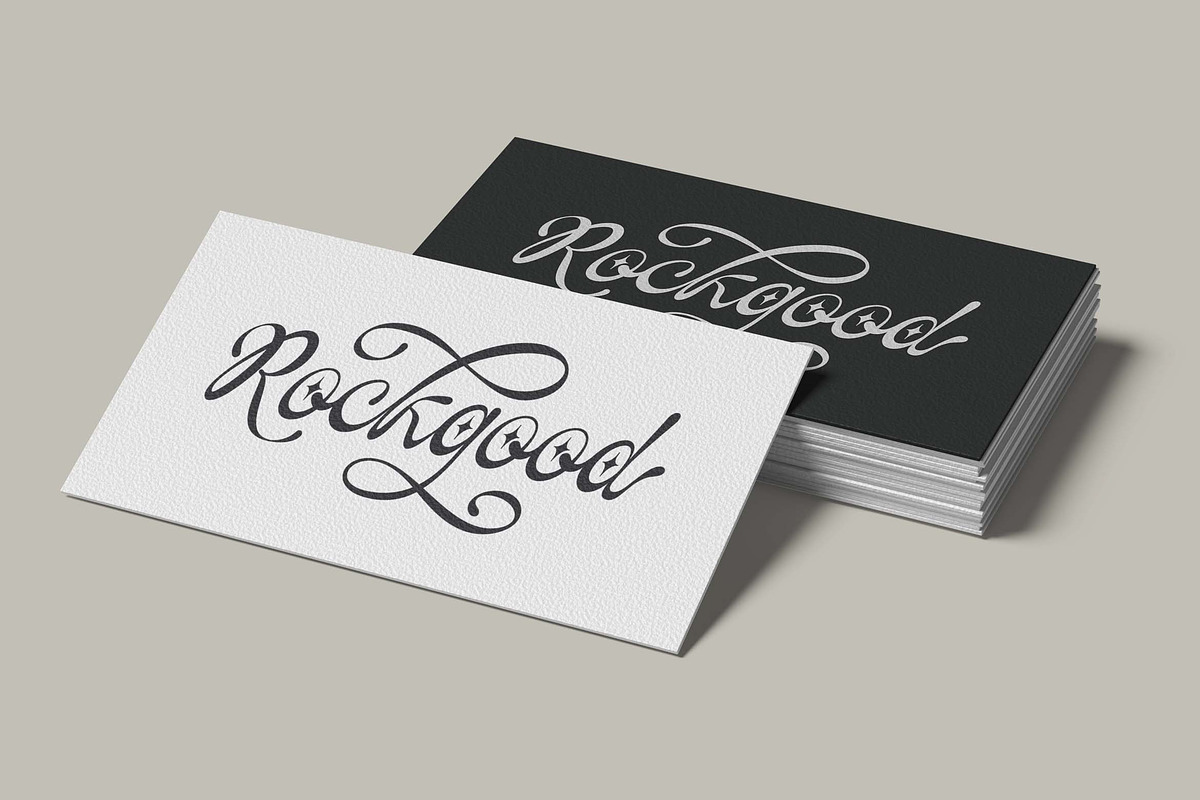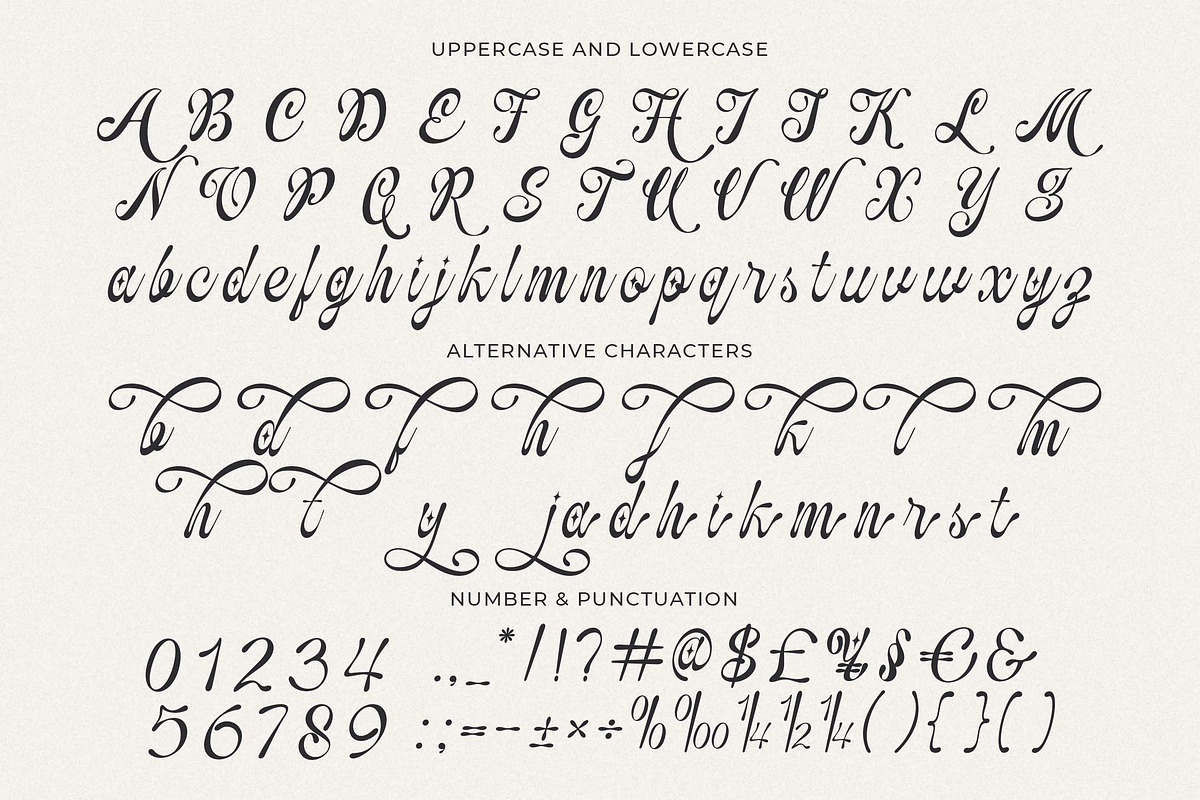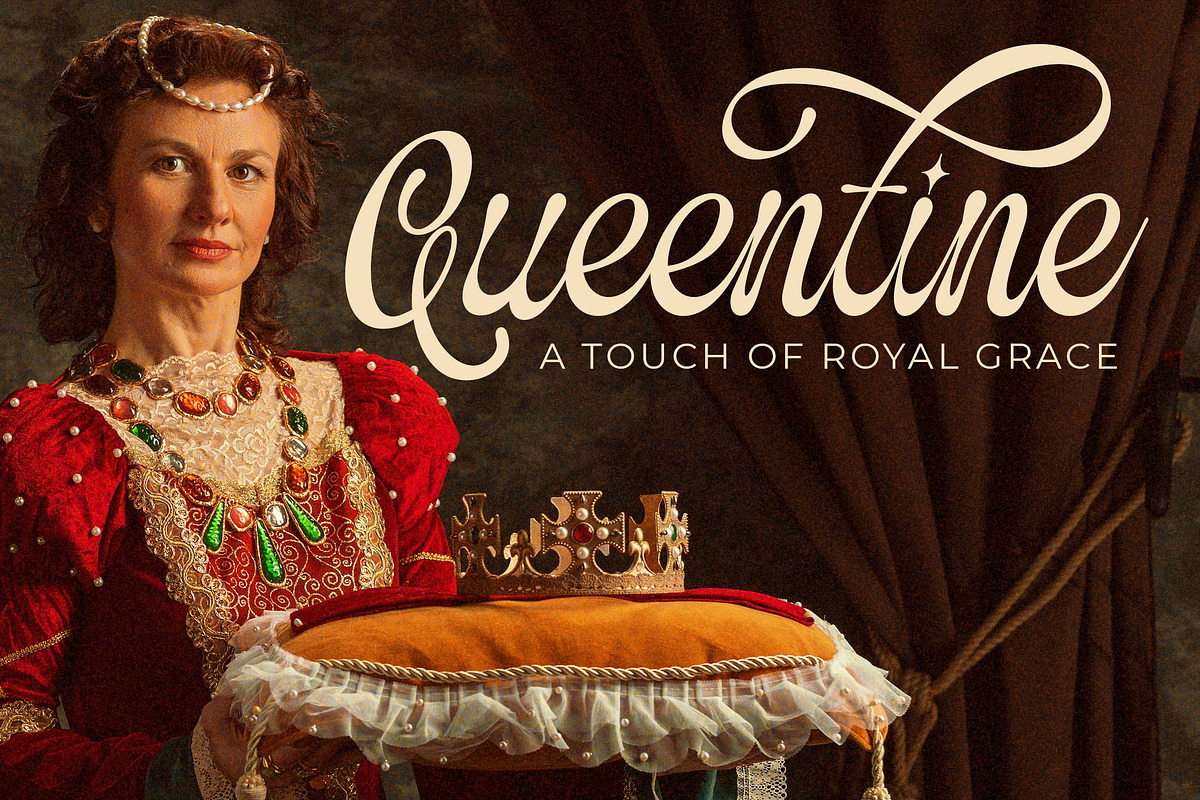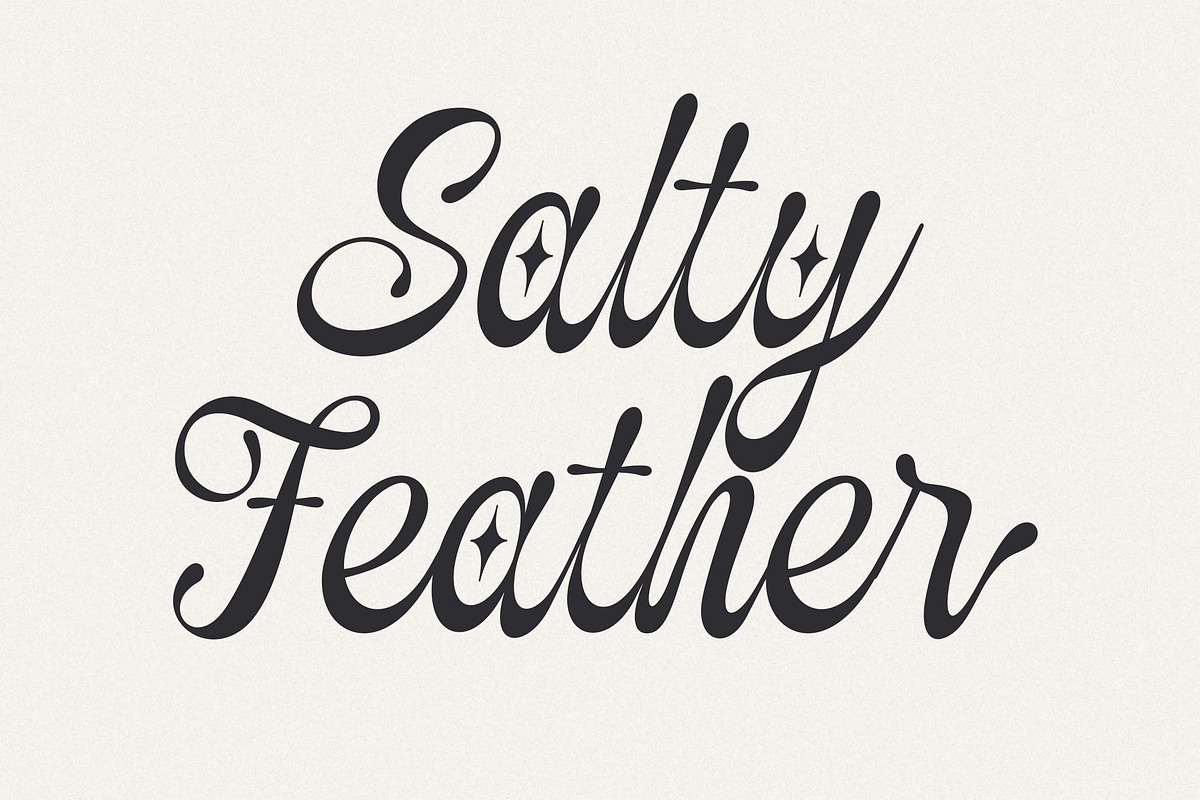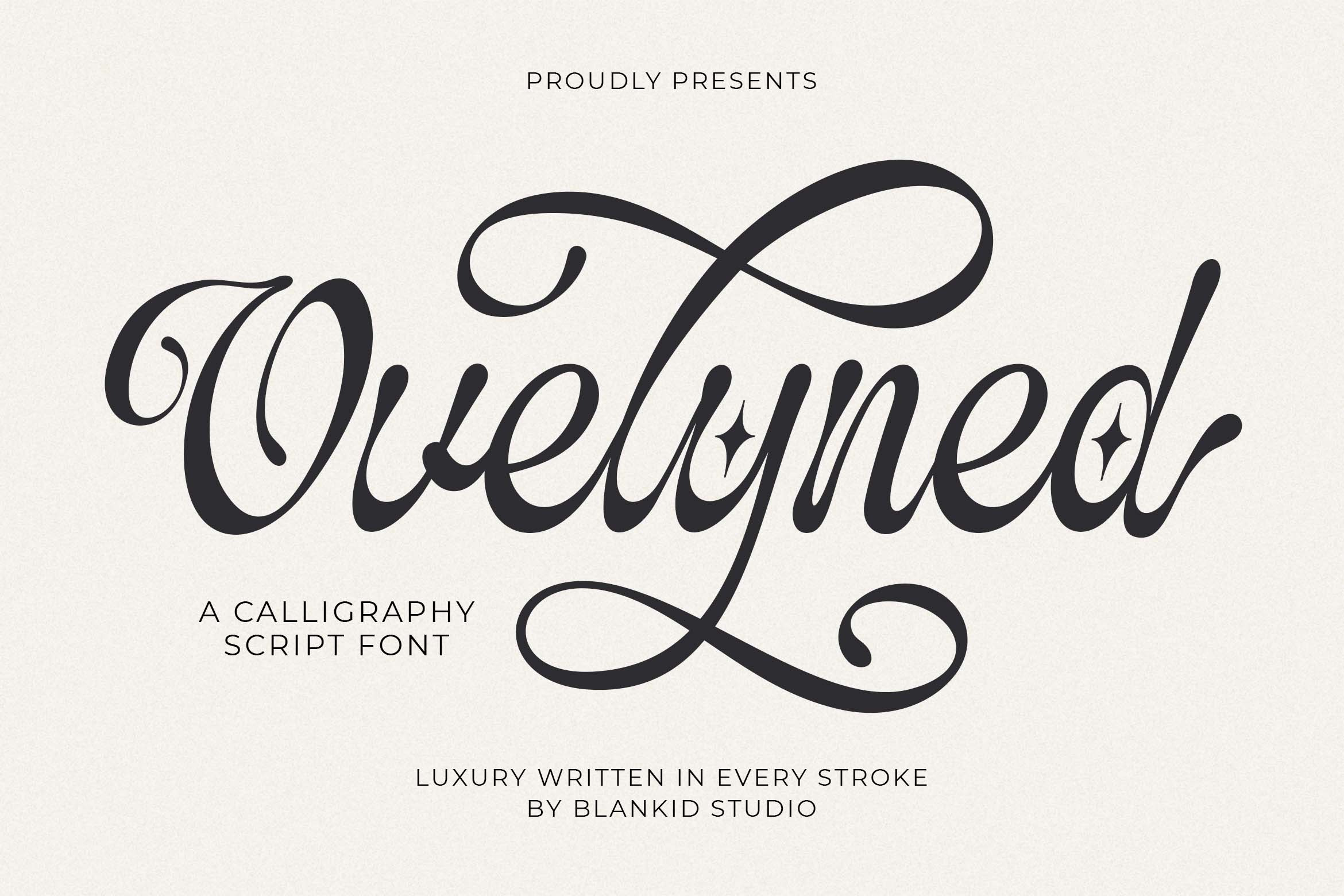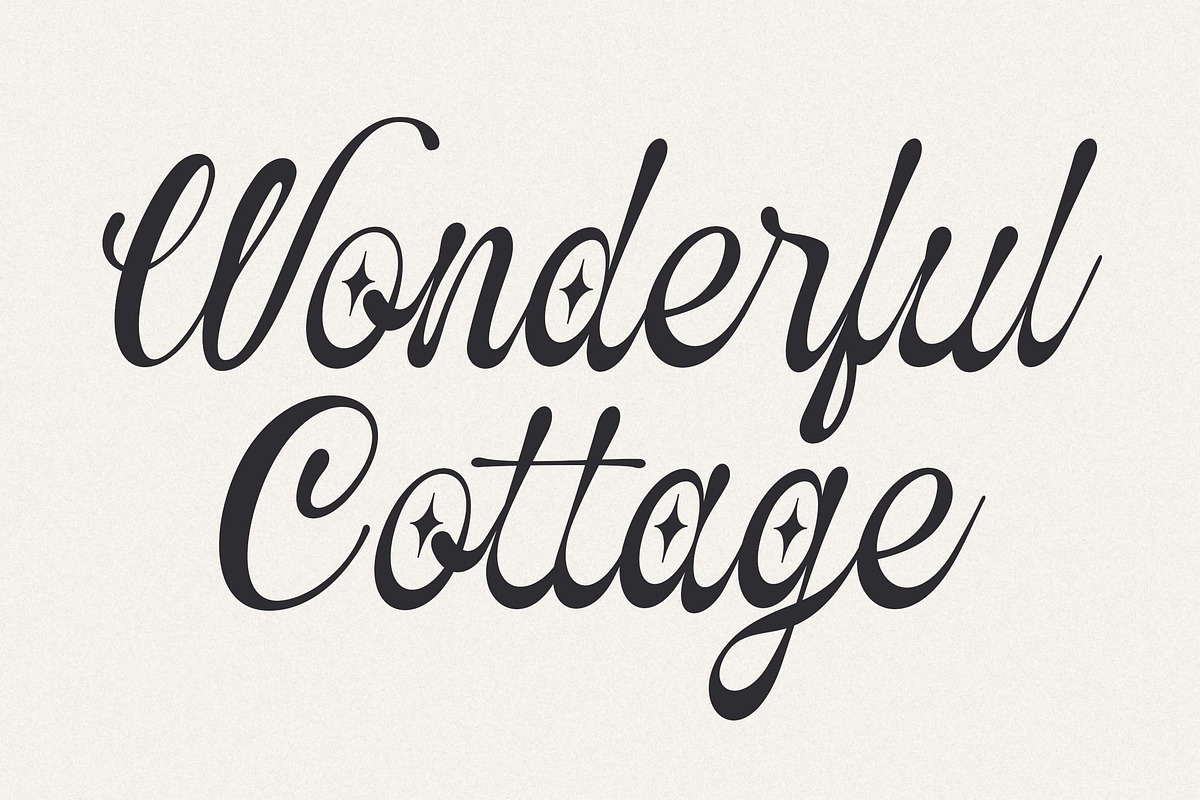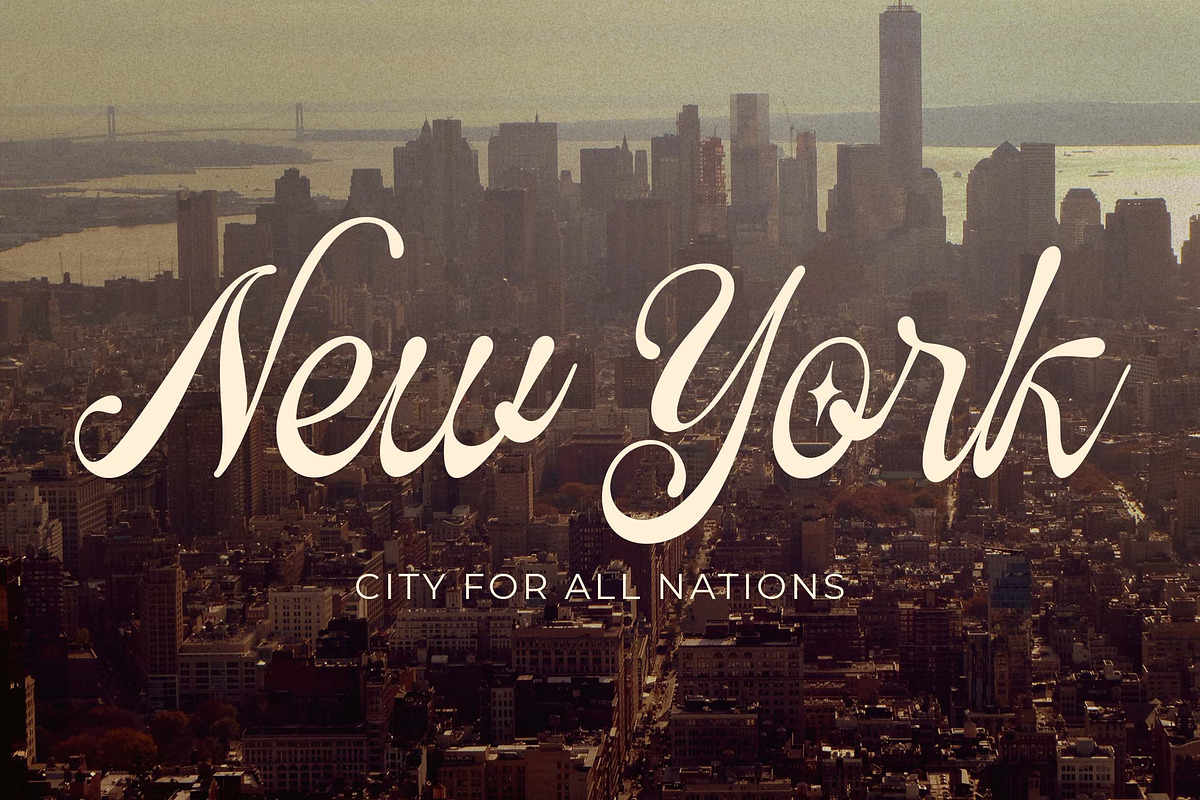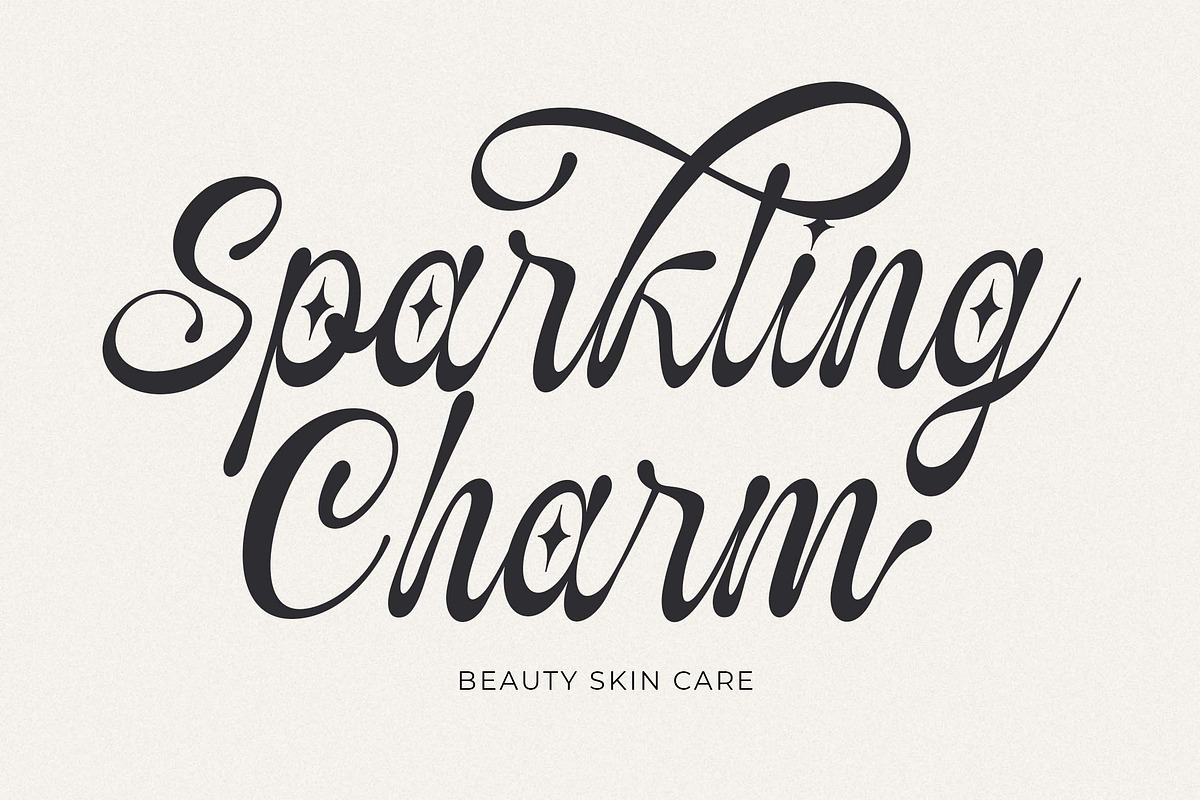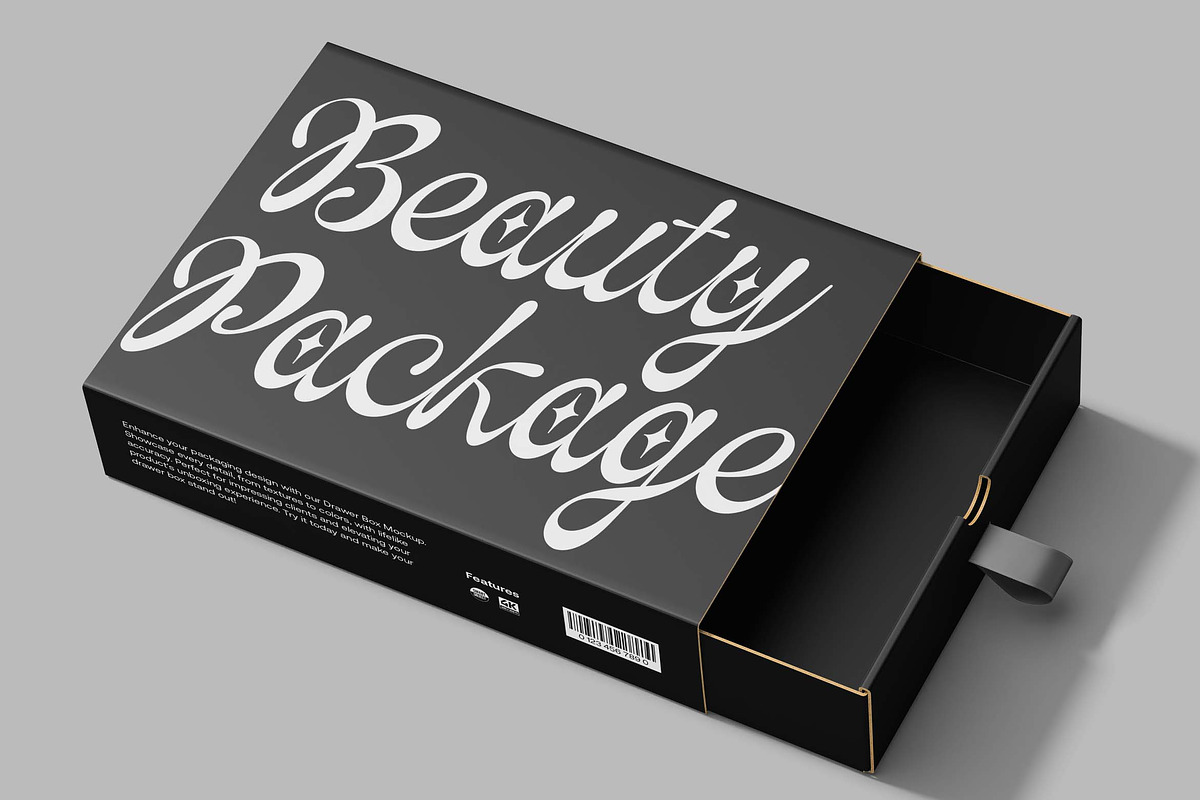
Ovelyned a Calligraphy Script Font
Hello, awesome people! This time, we have a new font called Ovelyned a Calligraphy Script Font by Blankids Studio.
Ovelyned a Calligraphy Script Font is made for any professional project branding, such as logotype, watermarks, poster, branding, promotions, product packaging, etc. Every letter has a calligraphy style design. This font comes in Otf. and Ttf. files.
Ovelyned font includes a full set of calligraphy uppercase and lowercase letters, numerals and punctuation. This font has a calligraphy style. See the previews above to get some inspiration on how to use them. Happy designing!